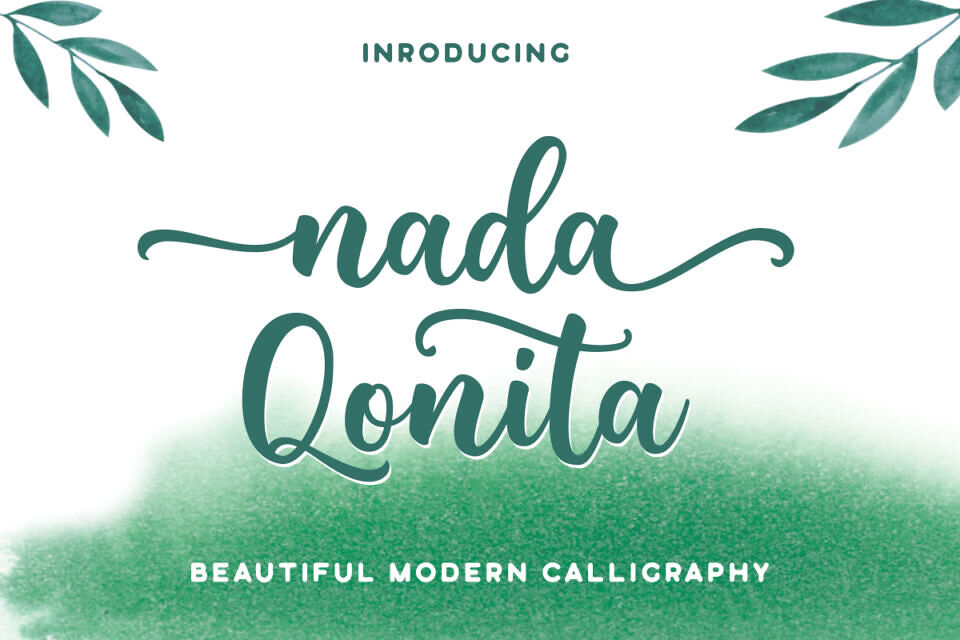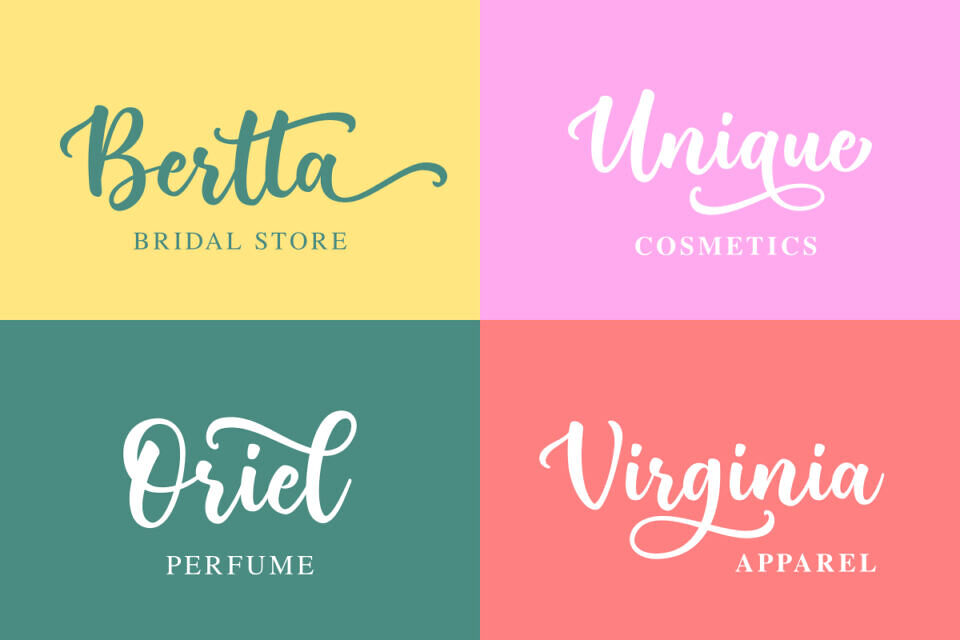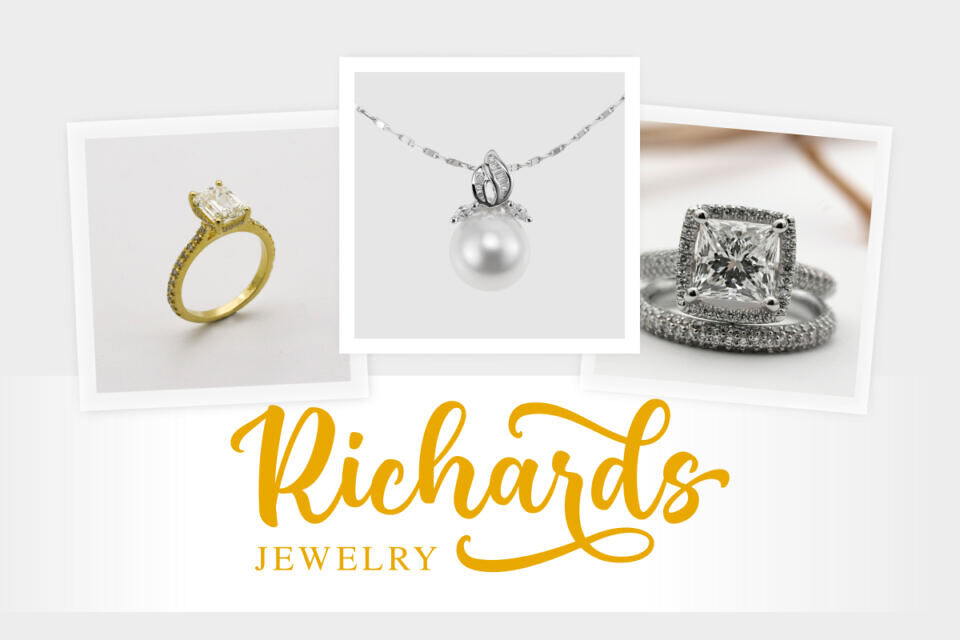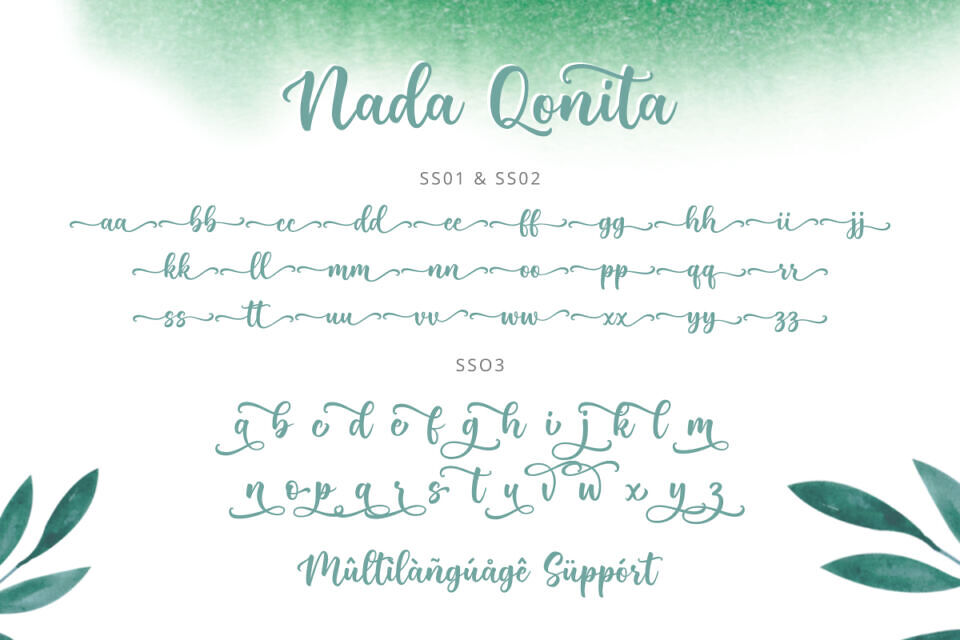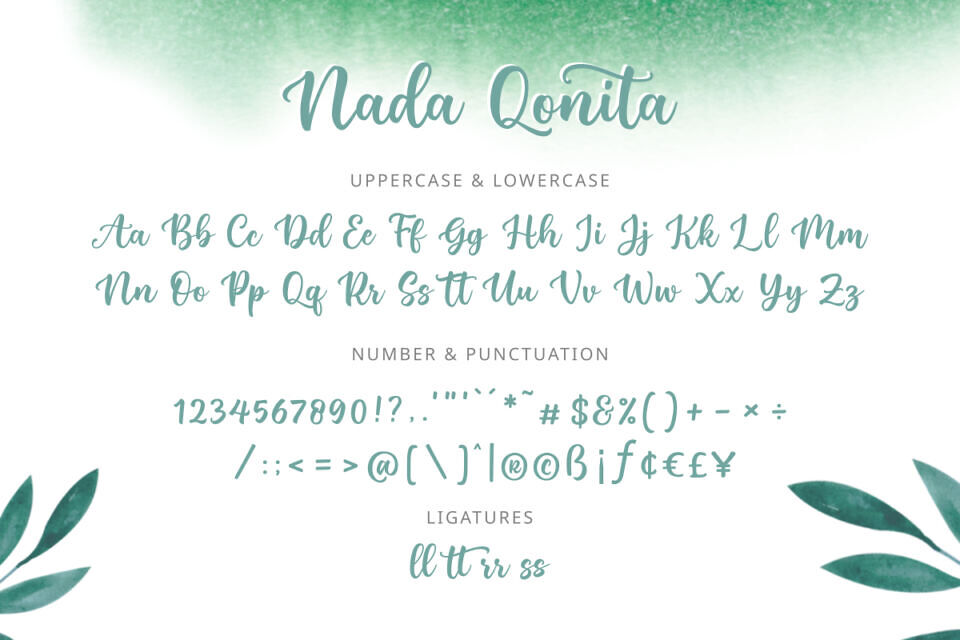
Nada Qonita is a modern calligraphy font that feels beautiful classy, elegant, and stylish. It is perfectly suited for a wide variety of projects!
This font is PUA encoded which means you can access all of the wonderful glyphs and swashes with ease! It also features a wealth of special features including alternate glyphs and ligatures.